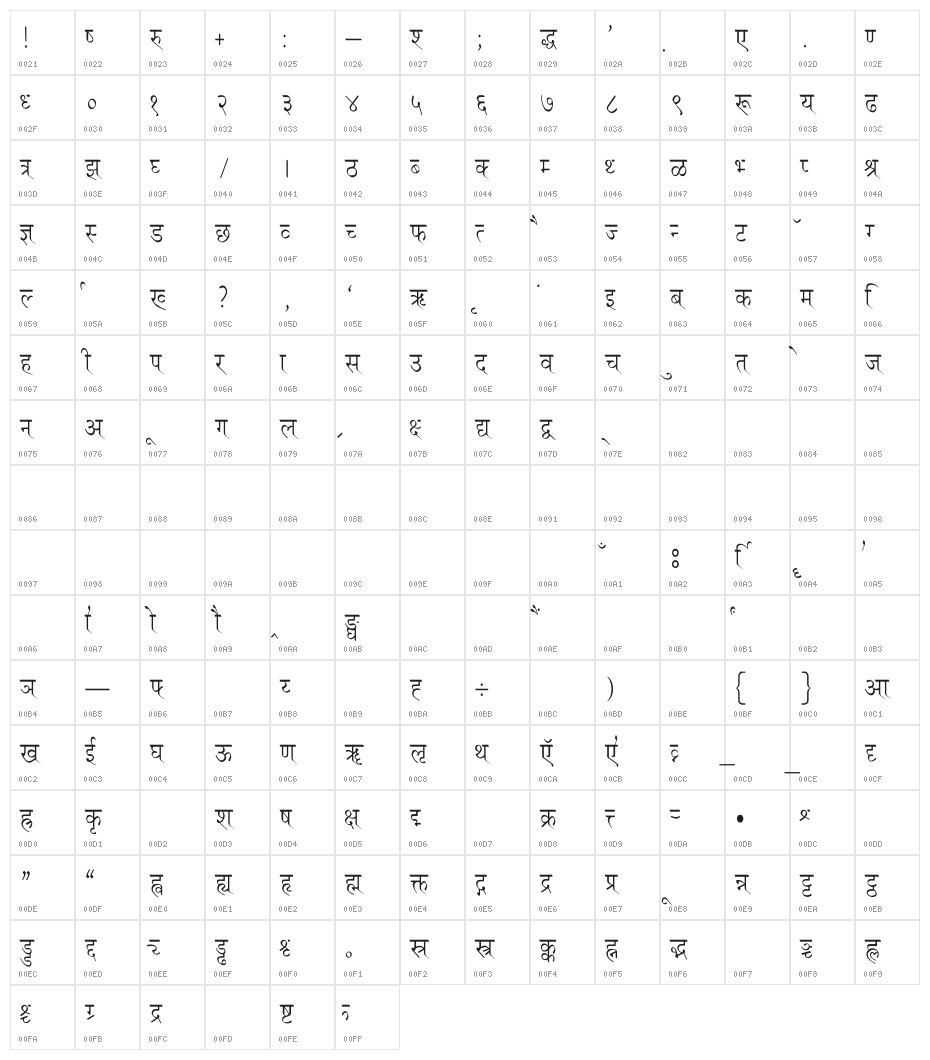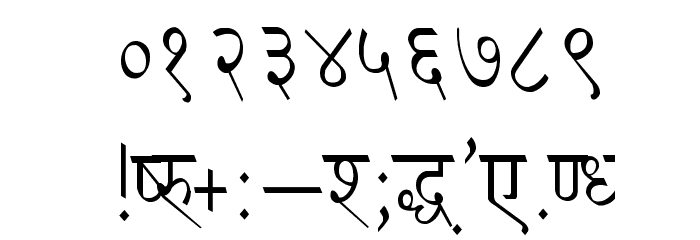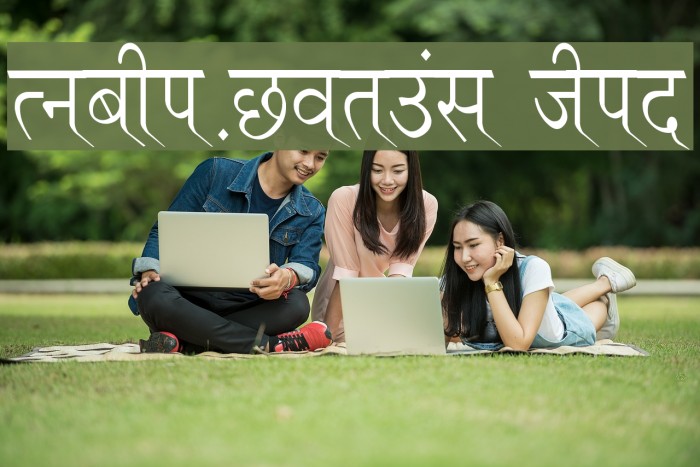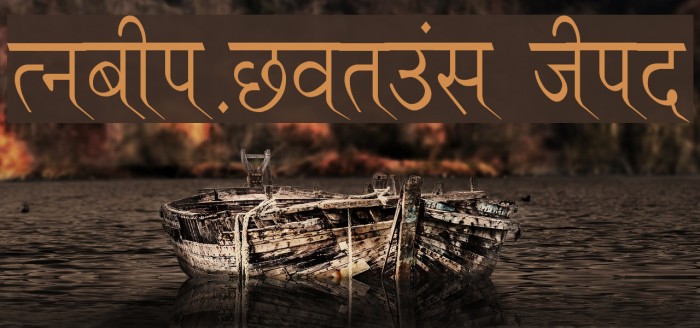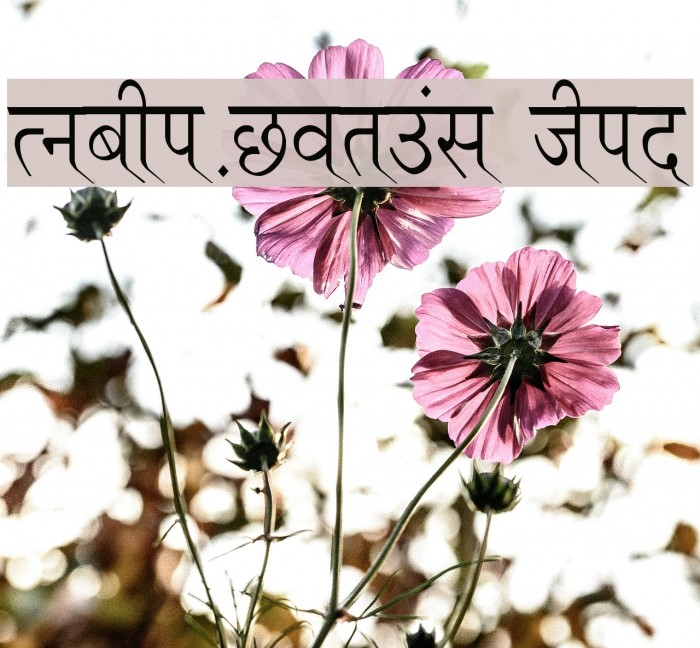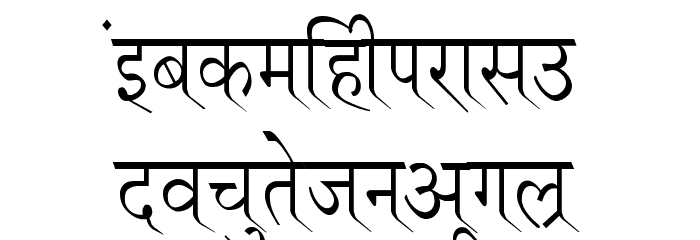
Ruchi-Normal Thin Font
Ruchi-Normal Thin Description
This font features a distinct and elegant Devanagari script style, characterized by its thin and graceful strokes. The characters exhibit a harmonious balance between traditional calligraphic elements and modern design aesthetics. The vertical lines are sleek and elongated, while the horizontal strokes are subtle and understated, giving the font a refined appearance. The numerals and special characters are designed to complement the overall style, maintaining consistency in stroke weight and curvature. This font is ideal for projects that require a touch of cultural authenticity and sophistication.
| Use Case | Headlines, Artistic projects, Cultural publications |
| Proposed Projects | Ideal for cultural publications, traditional event invitations, and artistic projects that require a sophisticated touch. |